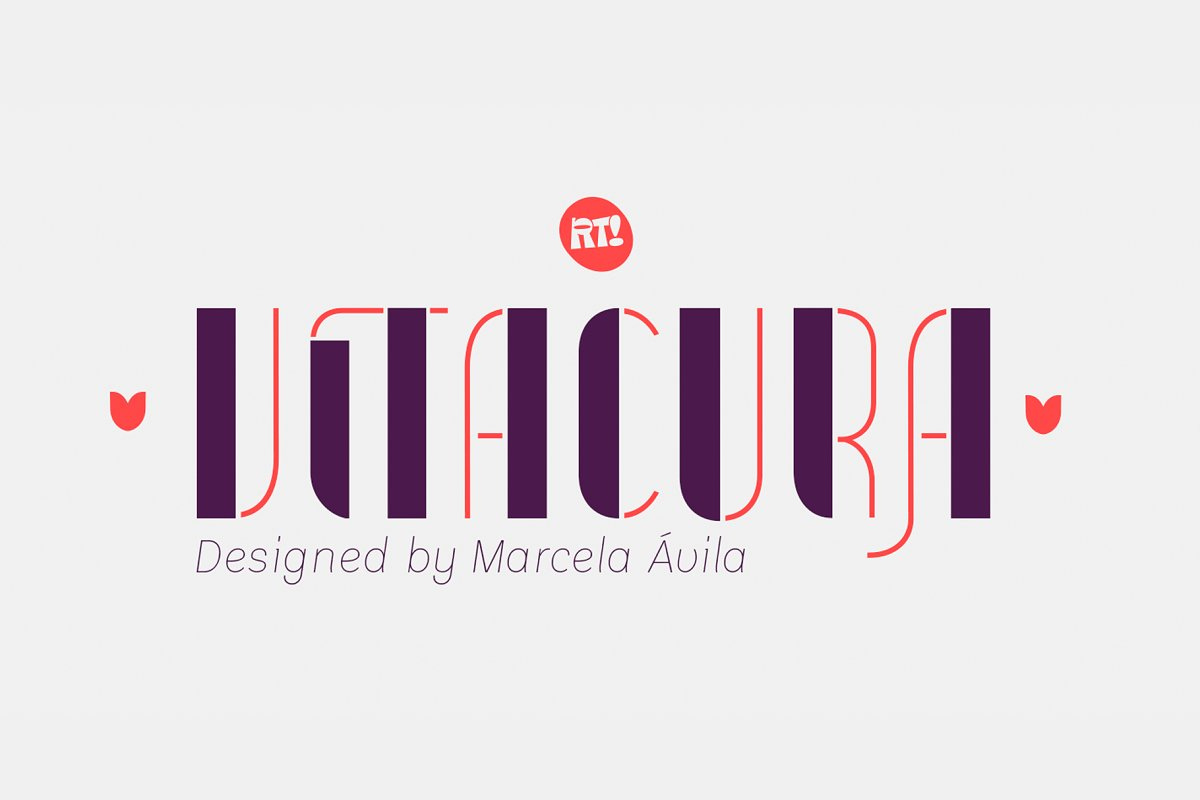
Vitacura Font
Vitacura Font is perfect for modern healthcare branding, wellness center identity, medical technology companies, pharmaceutical packaging, fitness app interfaces, and contemporary health publications. Its clean character makes it ideal for hospitals, dental practices, nutrition consultancies, mental health services, medical research institutions, and any project requiring professional trustworthiness with medical precision and contemporary healthcare aesthetics.
This font is exciting because it embodies the perfect balance of medical professionalism and human compassion while delivering exceptional clarity for critical healthcare communications. The carefully engineered letterforms inspire confidence and trust, creating typography that feels both scientifically precise and warmly approachable, making it ideal for brands seeking to communicate medical expertise while maintaining patient-centered empathy and accessibility.
The Vitacura Font family typically includes Light, Regular, Medium, and Bold weights with medical symbols, healthcare-specific ligatures, and professional elements that enhance its clinical personality. This comprehensive collection enables designers to create trustworthy brand systems that maintain medical authenticity while providing flexibility for various healthcare applications requiring both scientific accuracy and human connection.
Whether you're developing identity systems for medical practices, creating educational materials for health awareness campaigns, or designing interfaces for healthcare technology platforms, Vitacura Font Free Download delivers the professional credibility and compassionate appeal that healthcare audiences require. Its reliable presence ensures trustworthy brand recognition across digital platforms and print materials, making it perfect for websites, mobile applications, and medical communications that celebrate health innovation, patient care, and the vital importance of accessible healthcare with contemporary professionalism and genuine human concern.